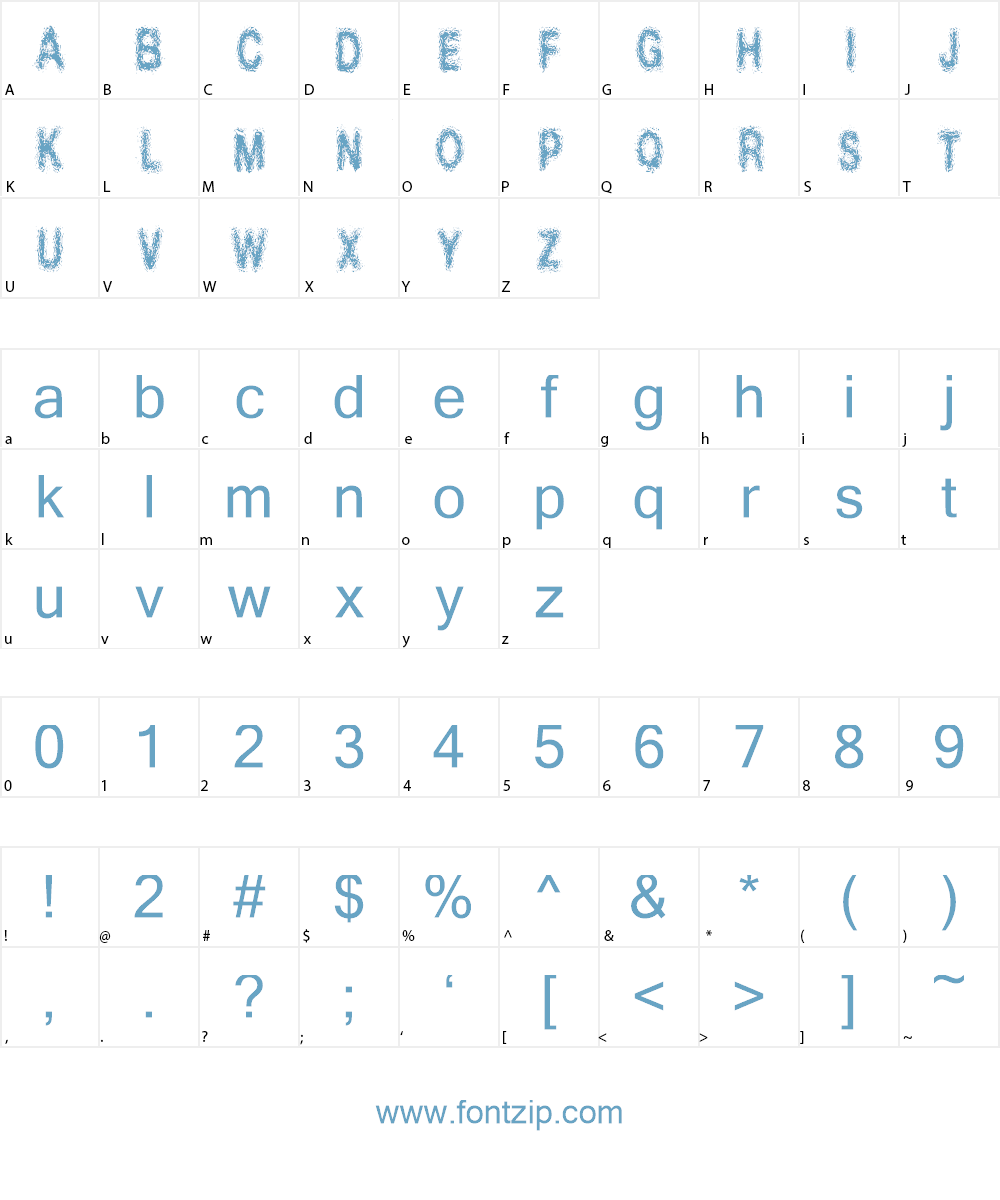
A font that is literally in mid explosion. For mad scientists and wannabe wizards that like a pop, bang and fizz in there typography. Use with caution!